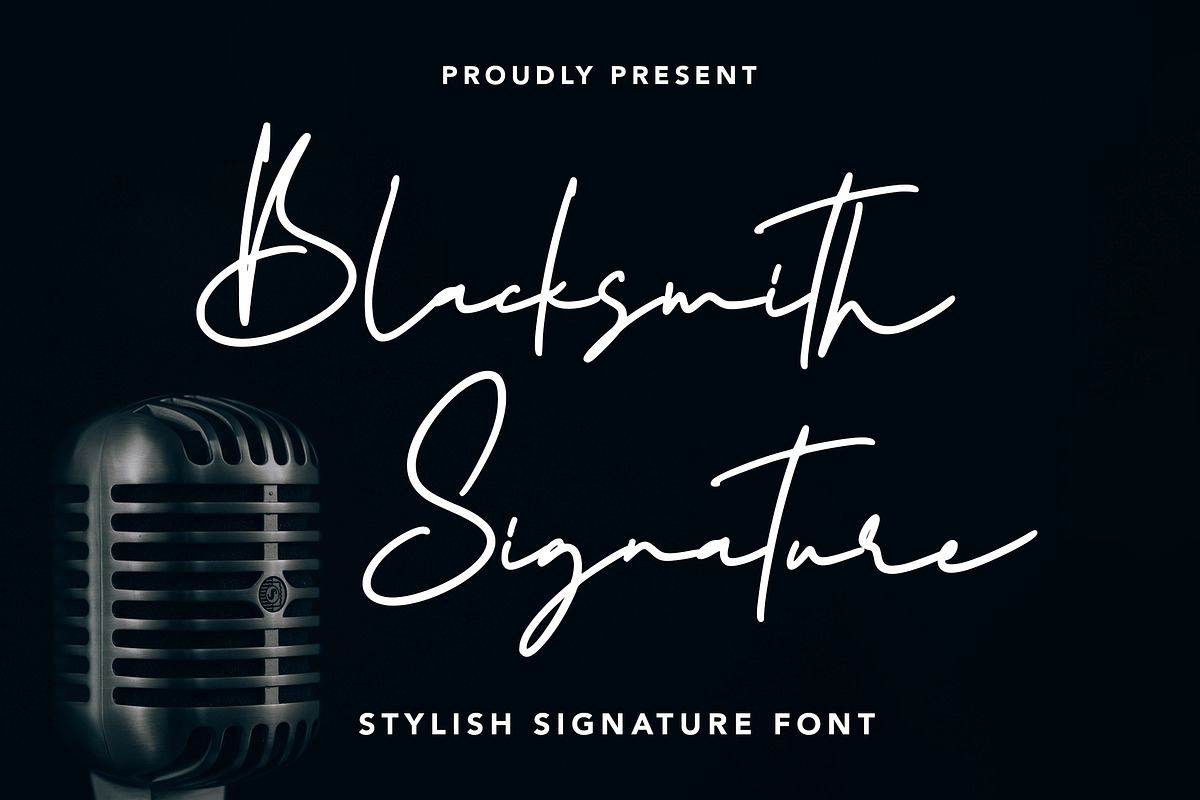
Blacksmith Signature - Stylish Font Free Download
The Blacksmith Signature - Stylish Font Free Download is a beautifully crafted script typeface that combines elegance with a personal, handwritten feel. With its smooth, flowing strokes and refined curves, this font is perfect for high-end branding, invitations, logos, and social media graphics. Whether you're designing for luxury brands, weddings, or creative projects, Blacksmith Signature adds a stylish and sophisticated touch to any design.
Blacksmith Signature - Stylish Font Free Download is ideal for designers looking to add a personal and stylish flair to their work. Perfect for upscale branding, event invitations, or custom designs, this font will elevate your creative projects with its graceful and timeless appeal. Download this elegant script font today and bring a touch of sophistication to your designs!